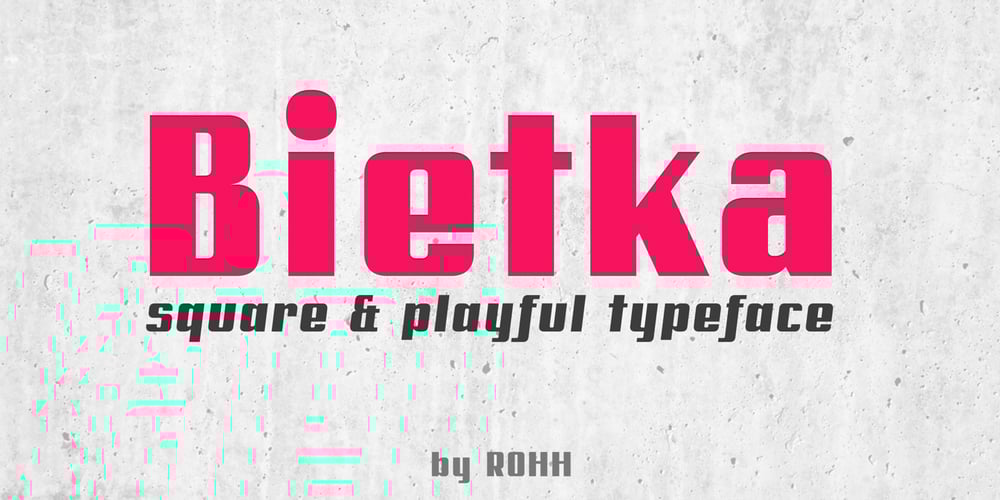
Bietka Font Family was designed by Roch Modrzejewski and published by ROHH. Bietka contains 2 styles and family package options. Bietka is a high quality squarish display font – geometric, modernist and playful at the same time. It supports multiple languages, as well as open type features, alternate styles, lining, old style, proportional and tabular figures, fractions, ordinals, subscript and superscript, arrows, symbols and special characters. It was designed for all kinds of display uses – great for posters, headlines, banners, logos and short paragraphs of text. Bietka comes in two styles – regular and italic.